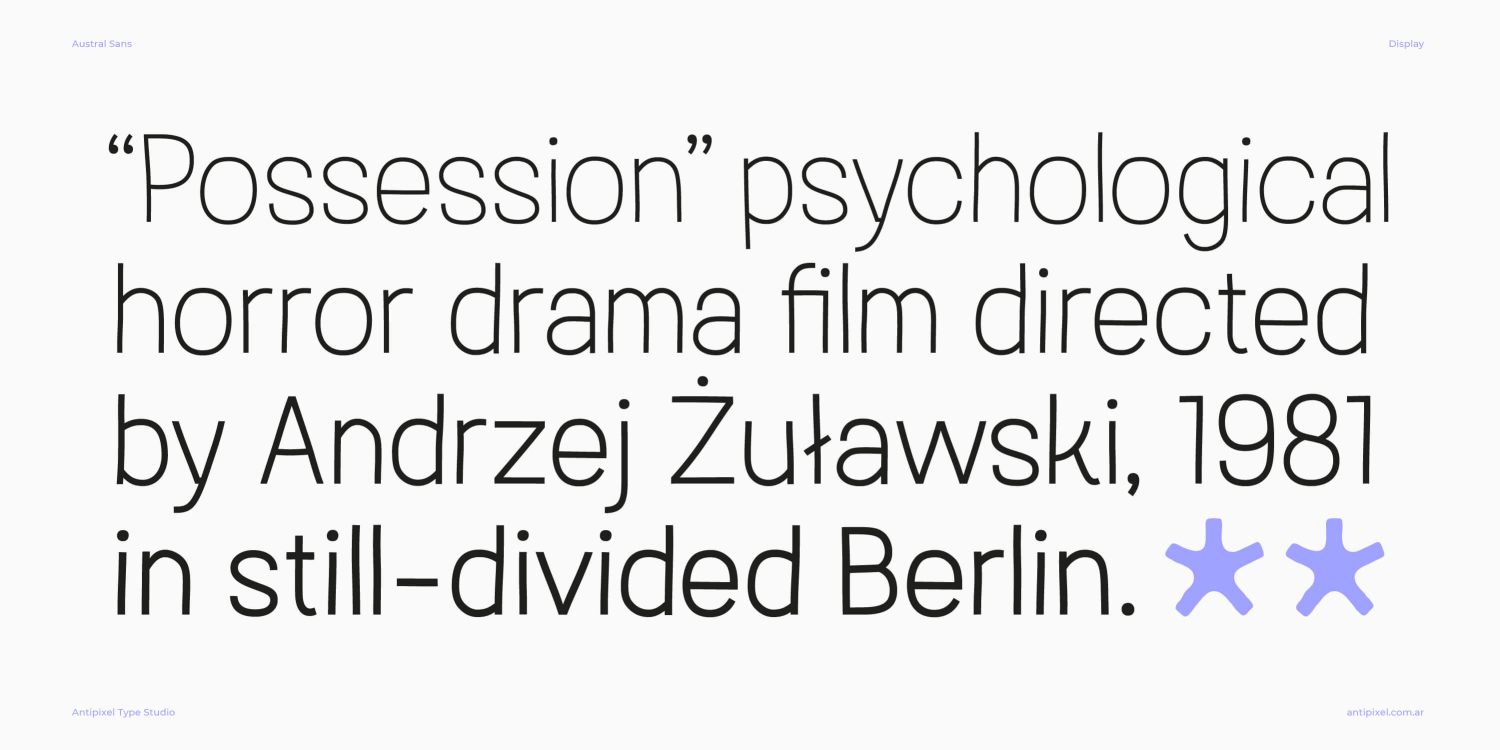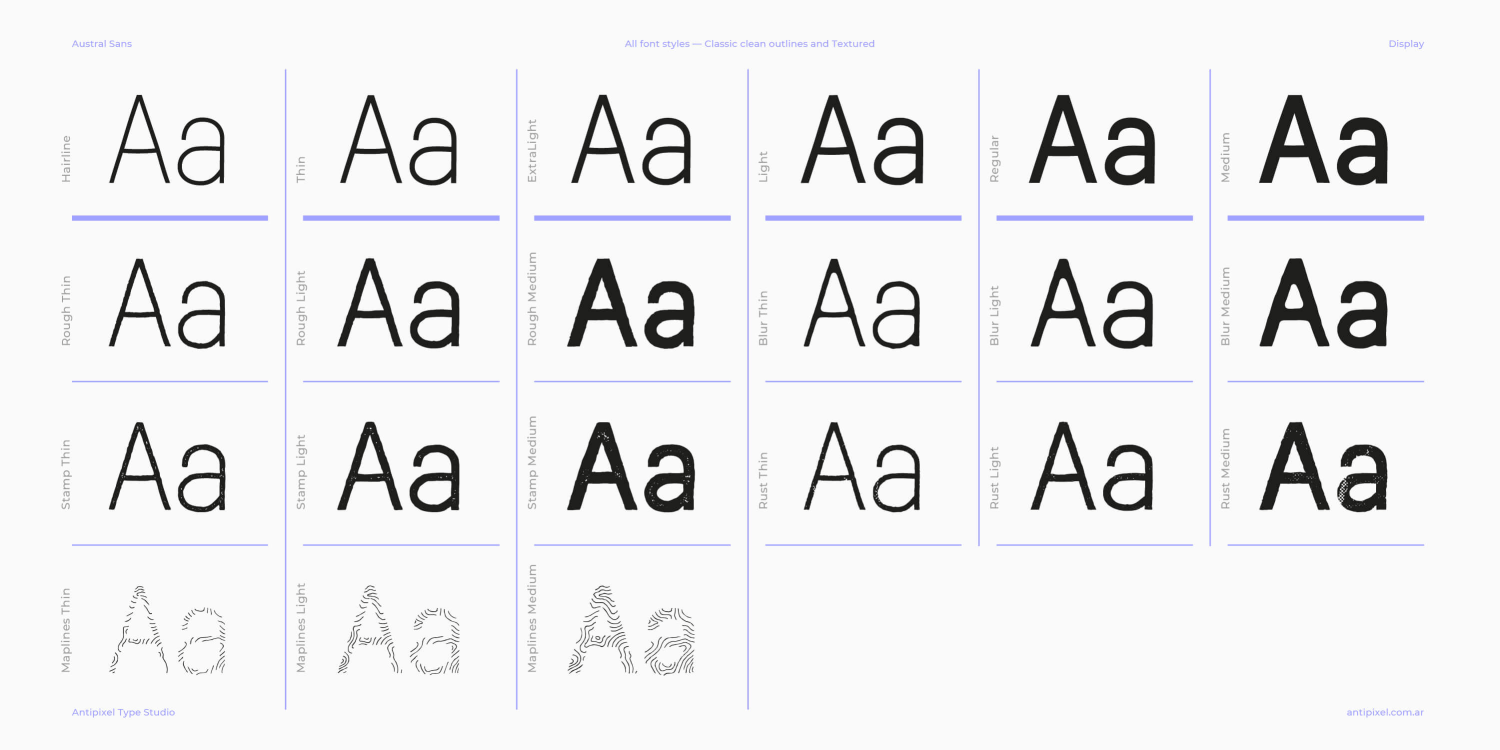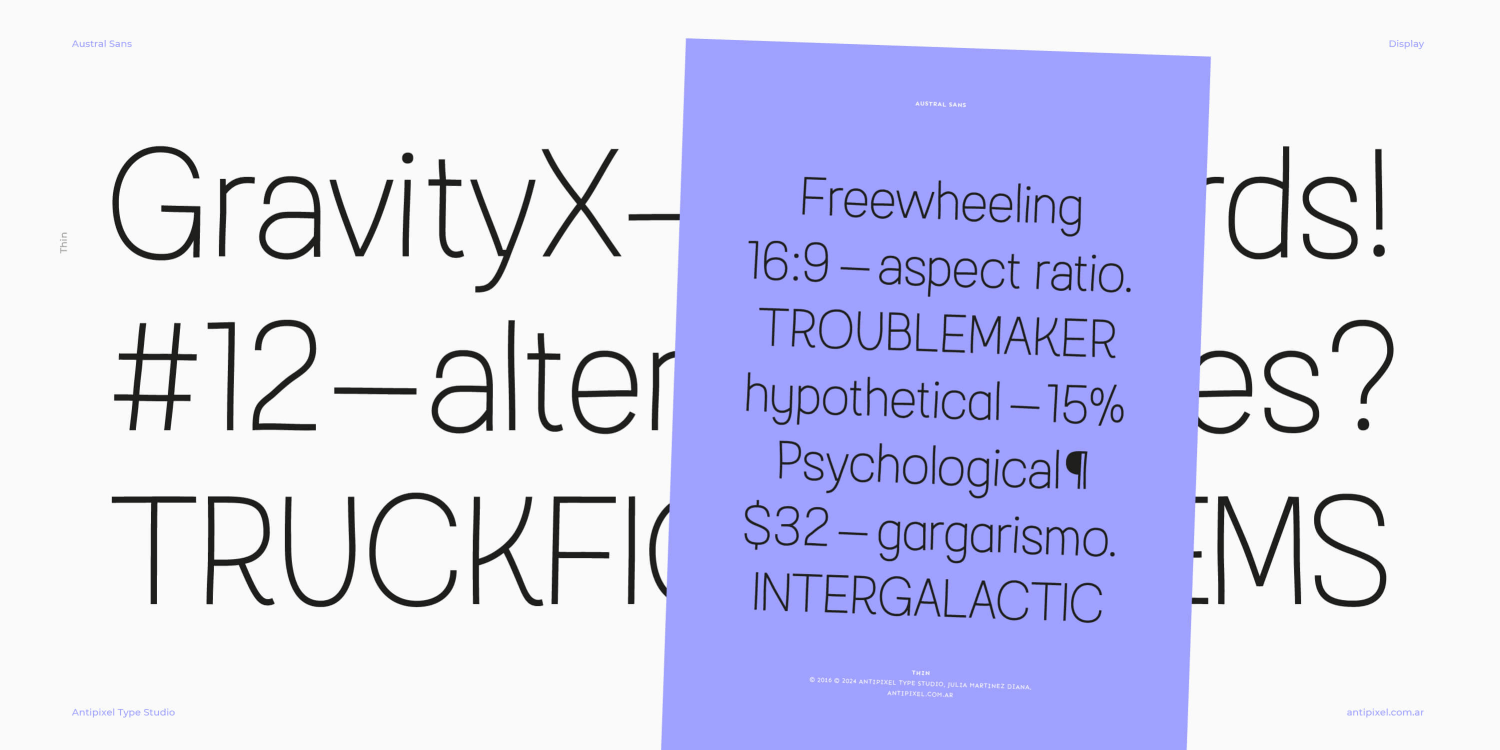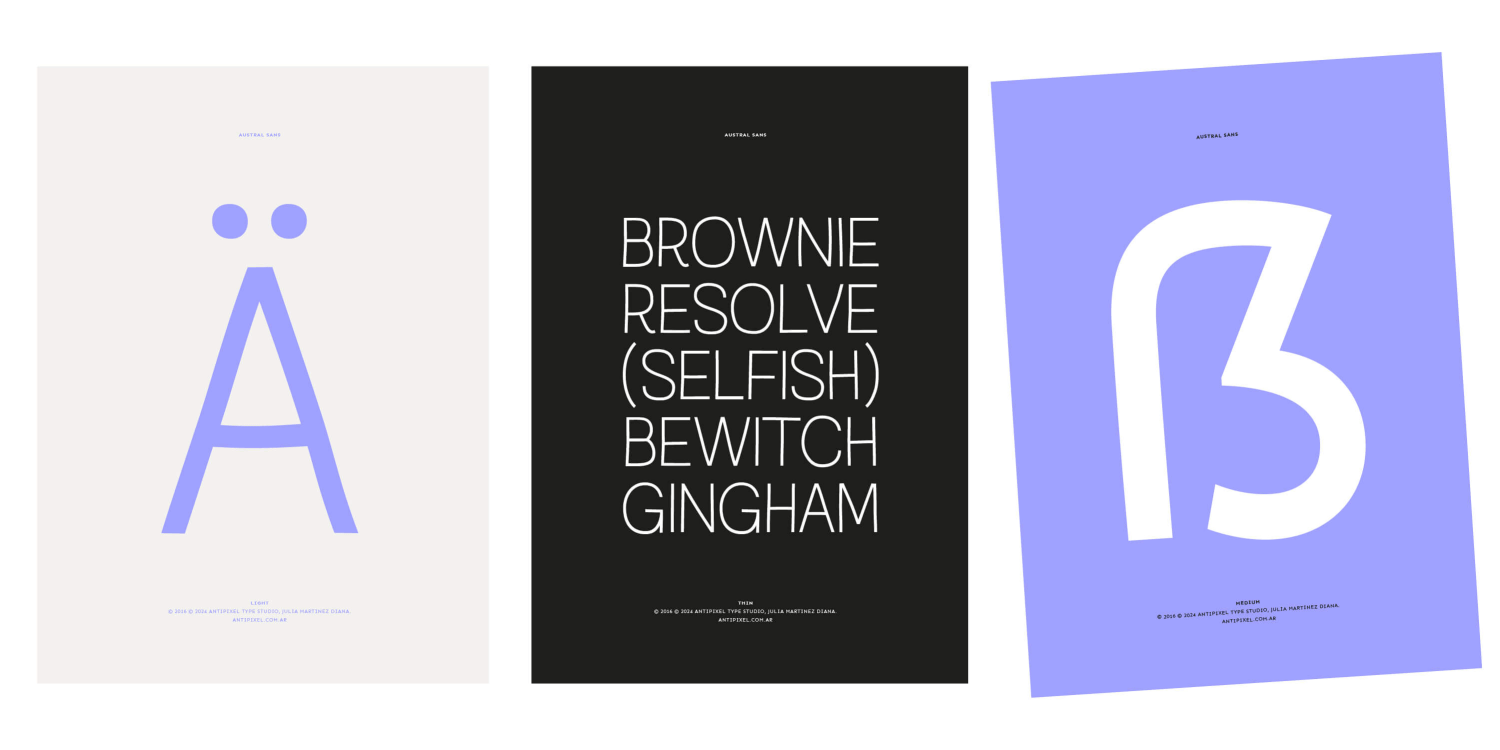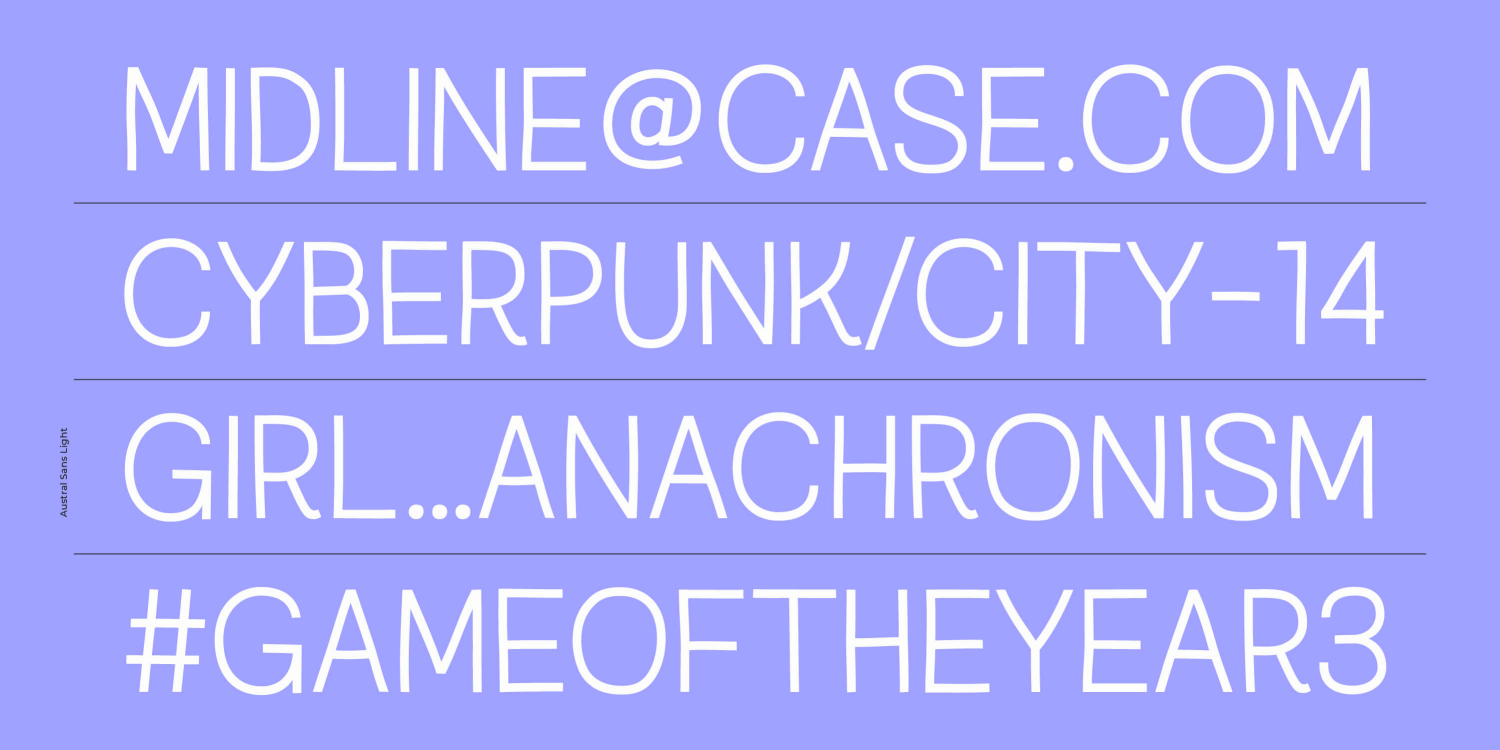
About Austral Sans
Austral Sans is a hand-drawn layered type family. Based in its Slab counterpart, it is casual, robust, and spirited. It is monolinear in spirit, despite having irregular stems that give the fonts an eroded effect (particularly exaggerated in the Medium…